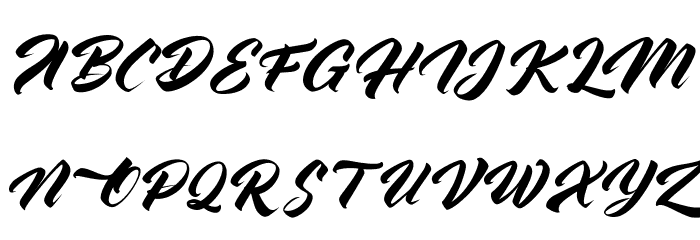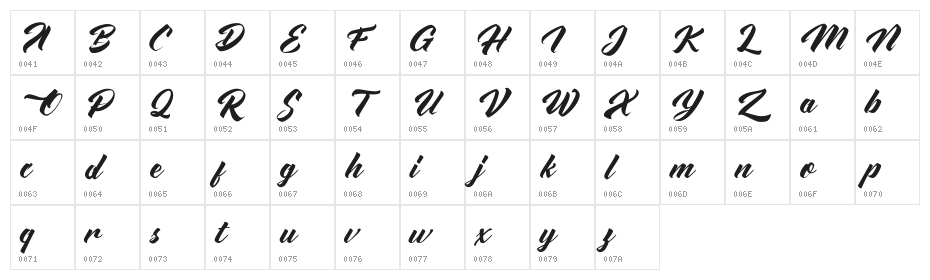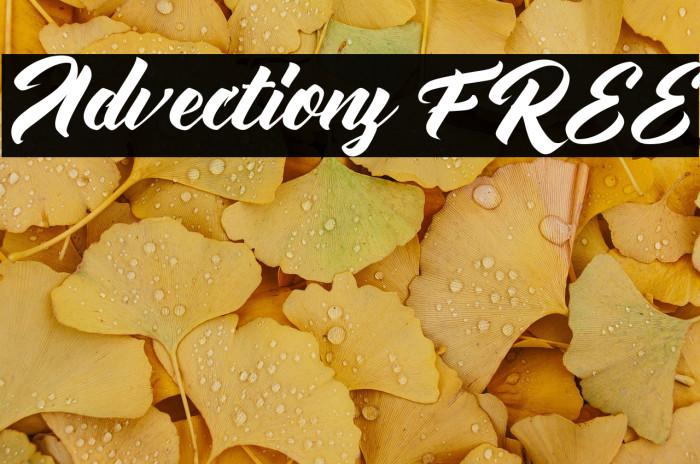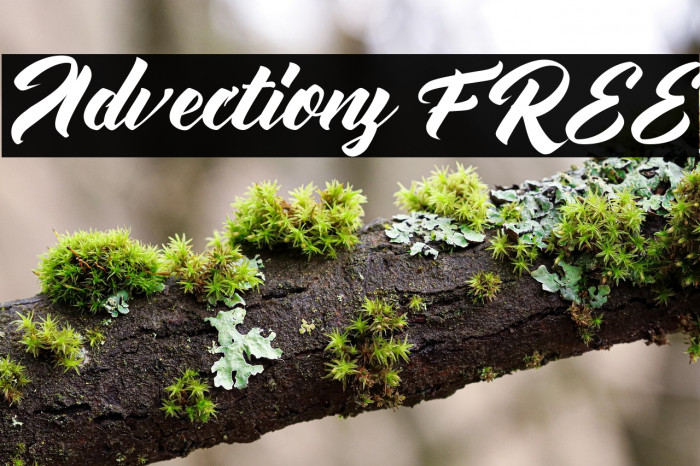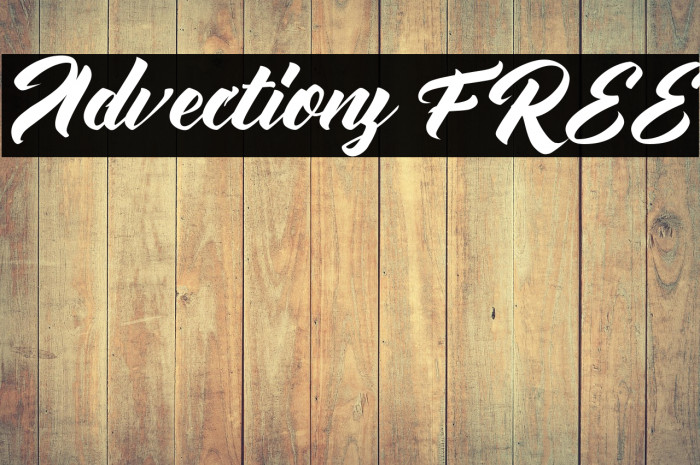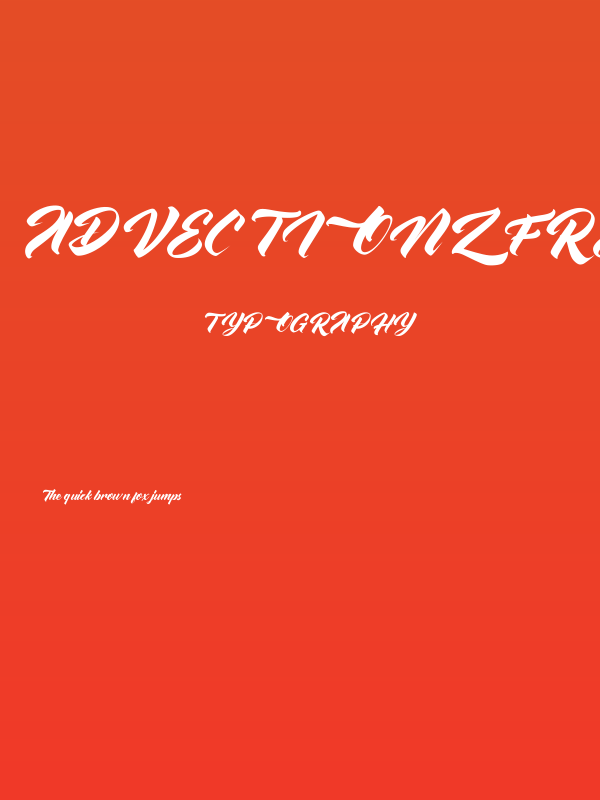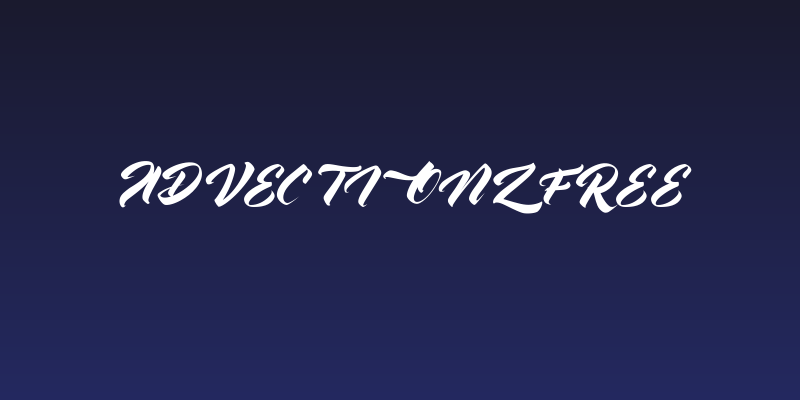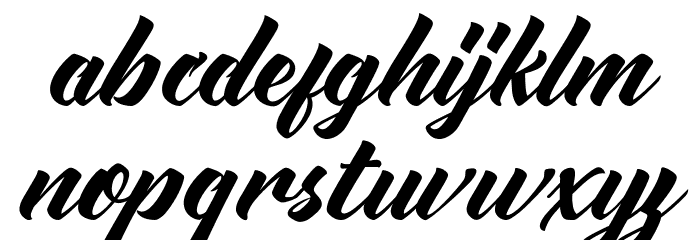
Advectionz FREE Font
Advectionz FREE Description
This font features a bold and flowing script style, characterized by its elegant and dynamic strokes. The letters are interconnected, creating a sense of continuity and fluidity. The uppercase letters exhibit a dramatic flair with sweeping curves, while the lowercase letters maintain a consistent rhythm. The overall appearance is both sophisticated and expressive, making it suitable for creative and artistic projects. The font's design emphasizes a strong visual impact, with thick strokes and high contrast, enhancing its readability and aesthetic appeal.